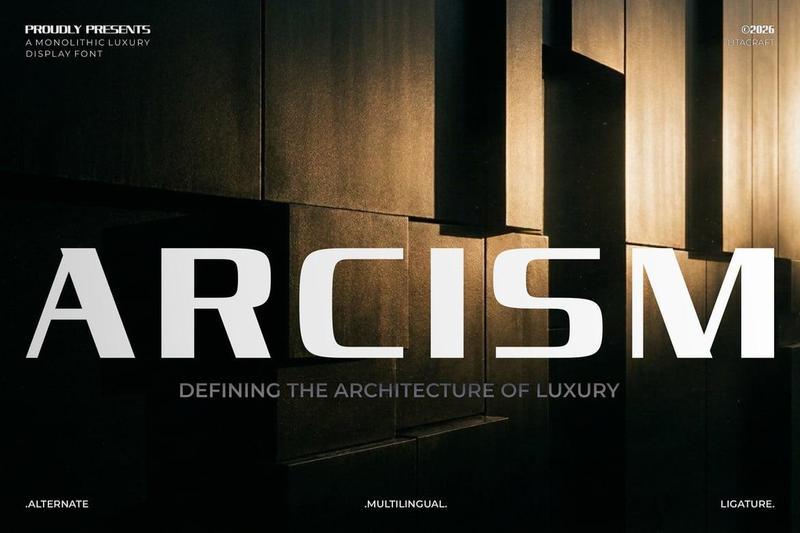
Command attention with **ARCISM**, a monumental brutalist inspired display typeface meticulously engineered to project absolute authority and refined luxury. Drawing inspiration from monolithic brutalist architecture and sharp geometric precision, **ARCISM** blends massive structural weight with sophisticated cut-outs, sleek alternates, and flawless ligatures.
Perfectly tailored for high-end branding, architectural visualization, luxury cosmetic packaging, premium timepiece identities, fine dining menus, brutalist editorial headlines, and sophisticated digital dashboards. Designed specifically for creators who demand undeniable presence and elite aesthetic dominance.
* Complete Set Alphabet (Uppercase & Lowercase)
* Numerals & Punctuation
* Unique Ligatures and Stylistic Alternates: Smart glyphs that merge monolithic forms into luxurious, high-velocity compositions.
* Multilingual Support: Full Multilingual Support for Western, Central, and South Eastern European Languages.
* Multi-Industry Versatility: Optimized for identity branding, editorial displays, architectural & structural engineering, even high-end luxury brand.
Empower your brutalist and minimalist design projects with uncompromising structure. Elevate your typography hierarchy with **ARCISM** today.